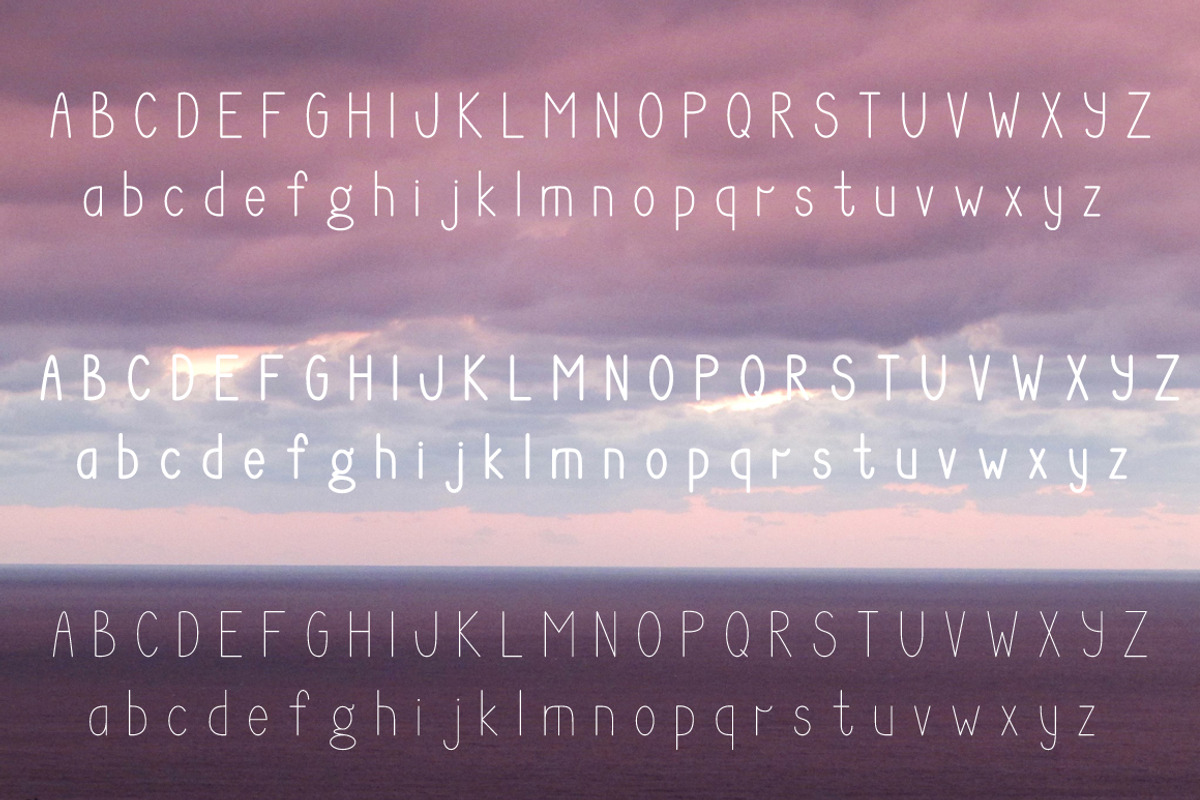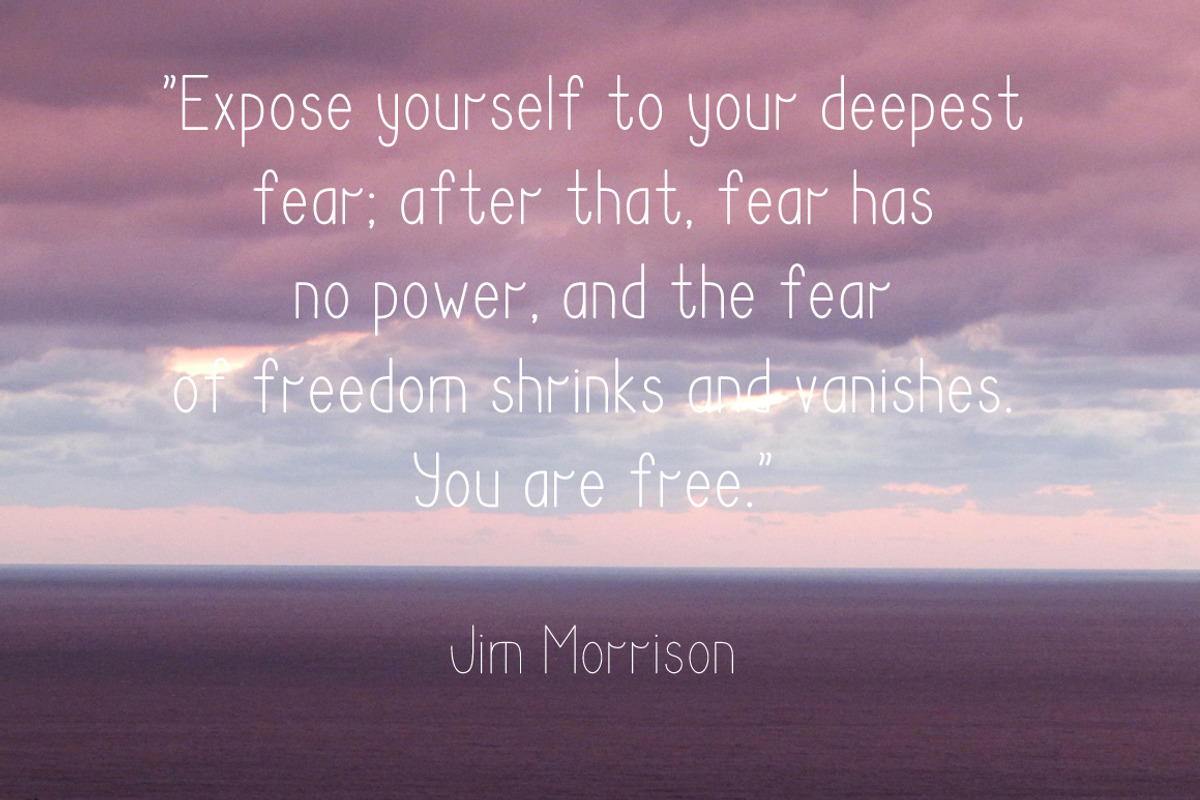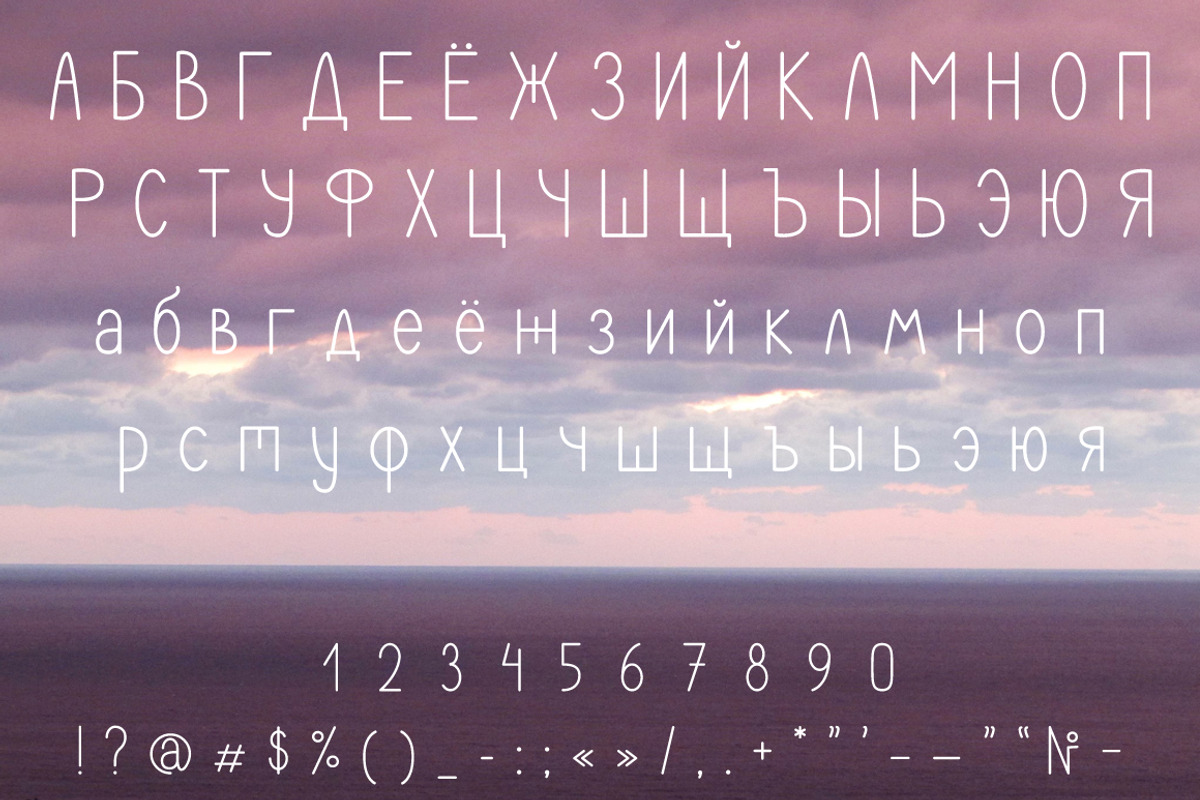
Freedom Font Family. Latin&Cyrillic
Freedom Font Family. Latin&Cyrillic by Pippi Draws is a font selected for branding, posters, packaging, typography.
- Includes uppercase & lowercase letters numbers & punctuation cyrillic letters three weights Please contact me if you have any questions.
Freedom Font Family. Latin&Cyrillic by Pippi Draws fits naturally into Branding, posters, packaging, typography.